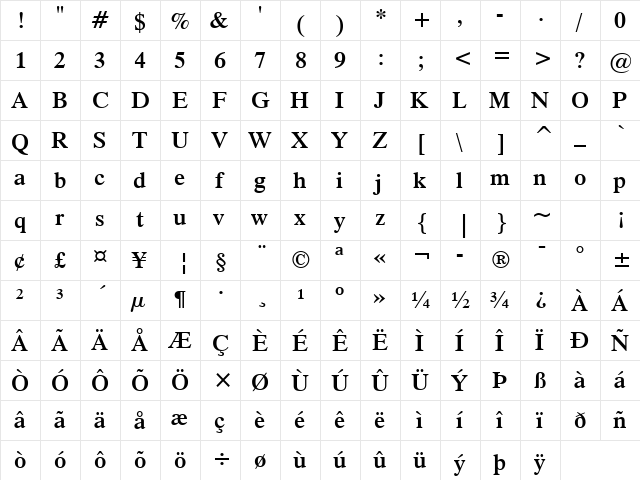
Dutch801 SeBd BT Semi-Bold Font Preview
Dutch801 SeBd BT Semi-Bold
Dutch801 SeBd BT Semi-Bold Font Details
| Style | Semi-Bold |
Design Context for Dutch801 SeBd BT Typeface
Dutch801 SeBd BT offers clean, dependable letterforms without strong stylistic allegiance, making it a practical choice for designers who need flexibility. Its bold stroke weight gives it real presence on the page.